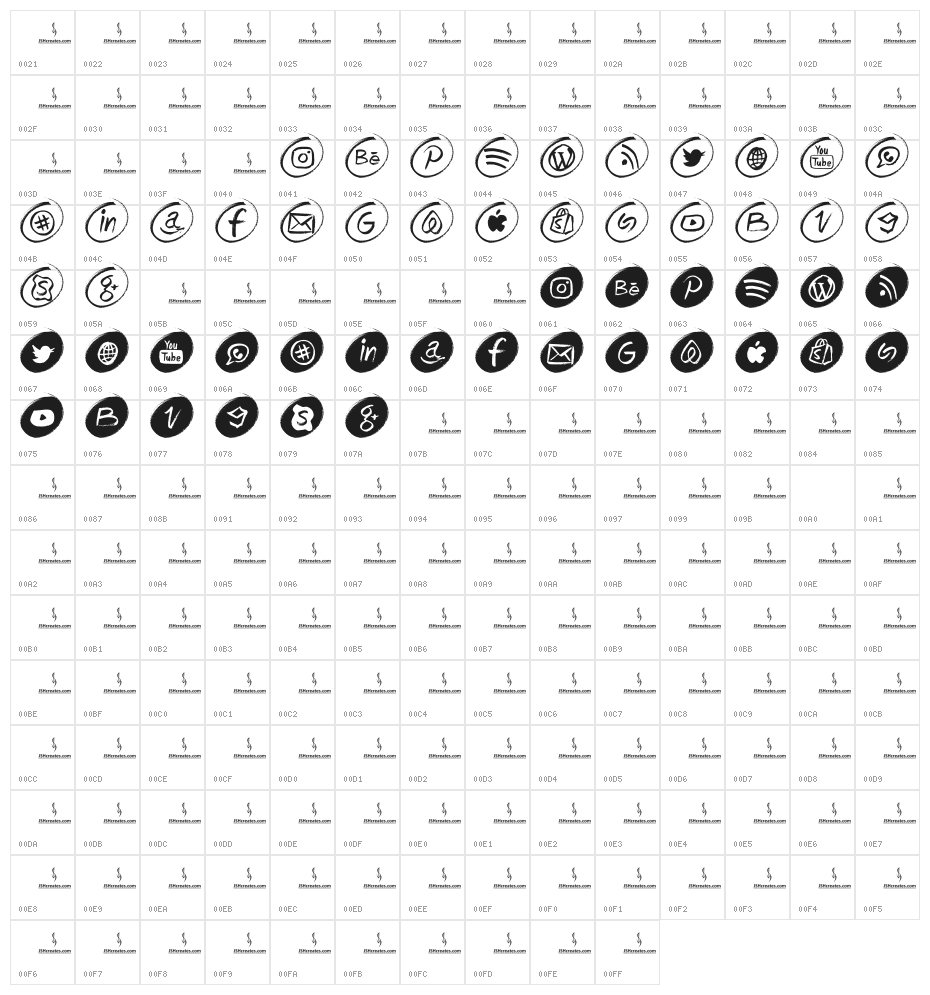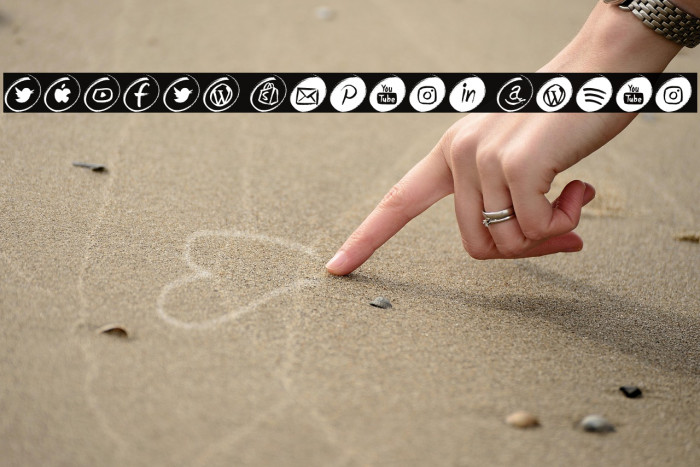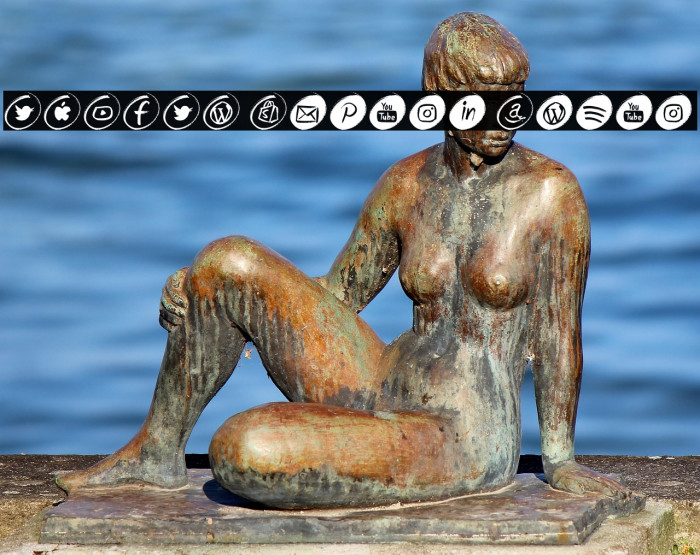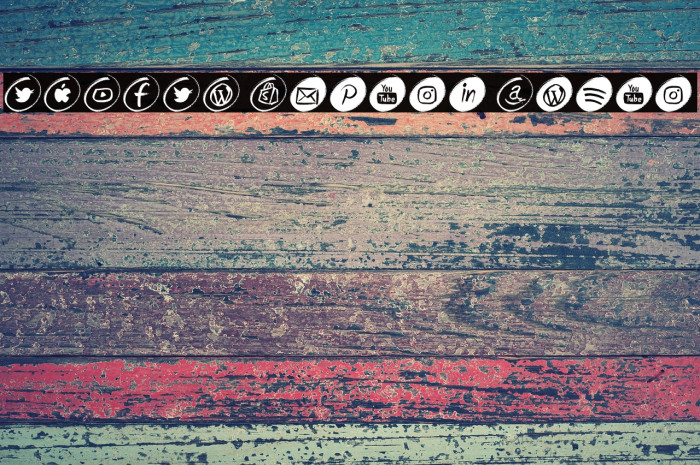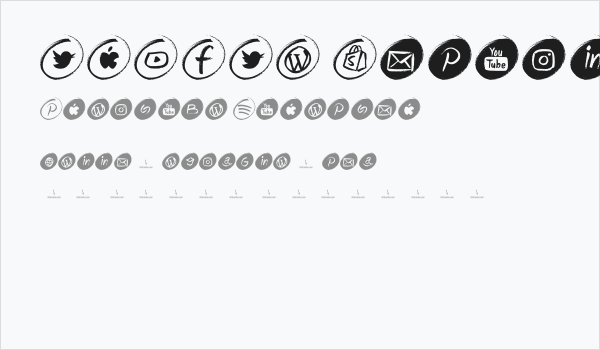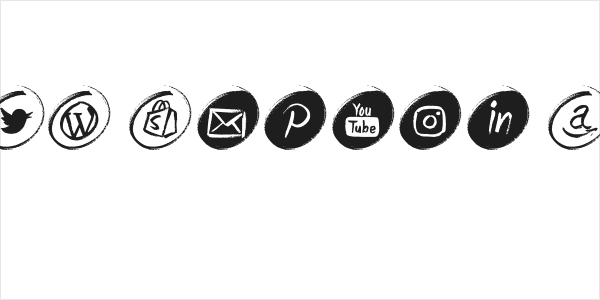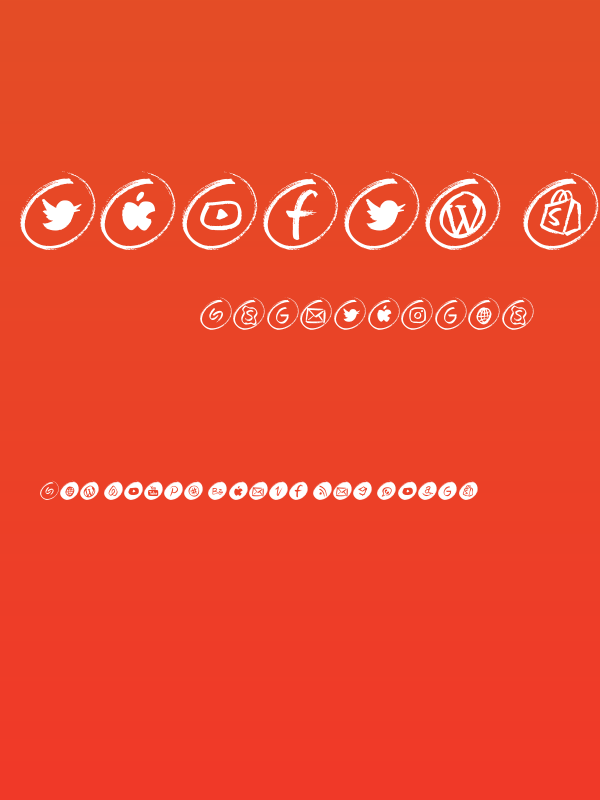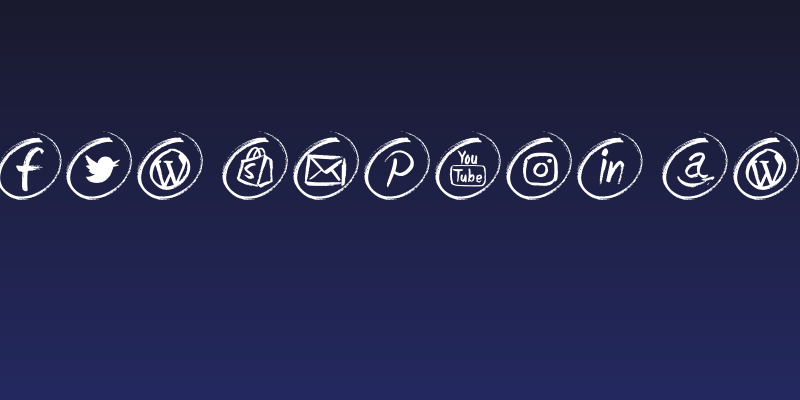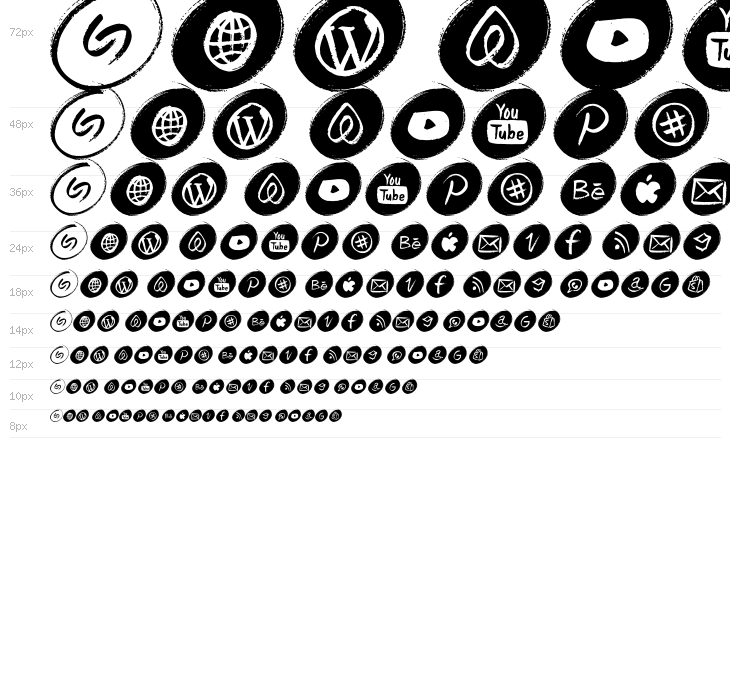
GRUNGE Social Media Font
GRUNGE Social Media Description
A decorative display set featuring hand-drawn, grunge-style circular icons representing various social media platforms. The icons have rough, sketchy outlines with a playful, informal appearance, and are presented in both black-on-white and white-on-black variations.
| Overall Style | Decorative, Grunge, Hand-drawn |
| Use Case | Logos, Icons, Social media buttons, Decorative elements |
| Proposed Projects | Social media graphics, website footers, digital marketing materials, blog posts, creative presentations. |